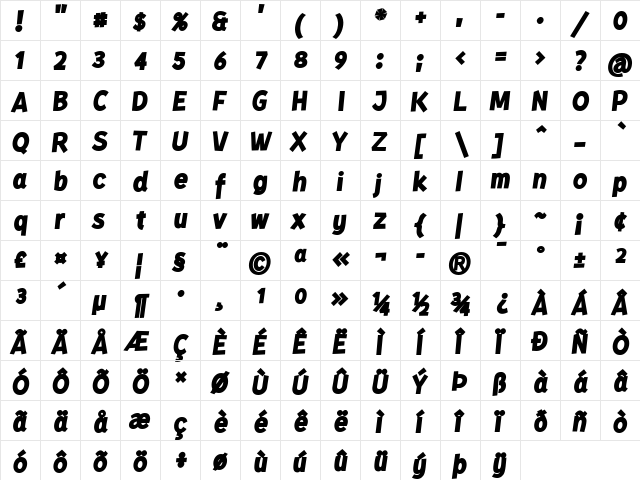
Kurri Island Italic Black Regular
| Foundry | Mans Greback |
| Designer | Mans Greback |
Design Context for Kurri Island Italic Black Typeface
Kurri Island Italic Black is a composed and adaptable typeface that performs quietly and consistently across a wide range of design contexts. The dynamic lean of this cut emphasises speed and emphasis in any layout.
Pro Tip: Use Kurri Island Italic Black for emphasis, pull quotes, and subheadings where its slanted energy can add rhythm to the layout.